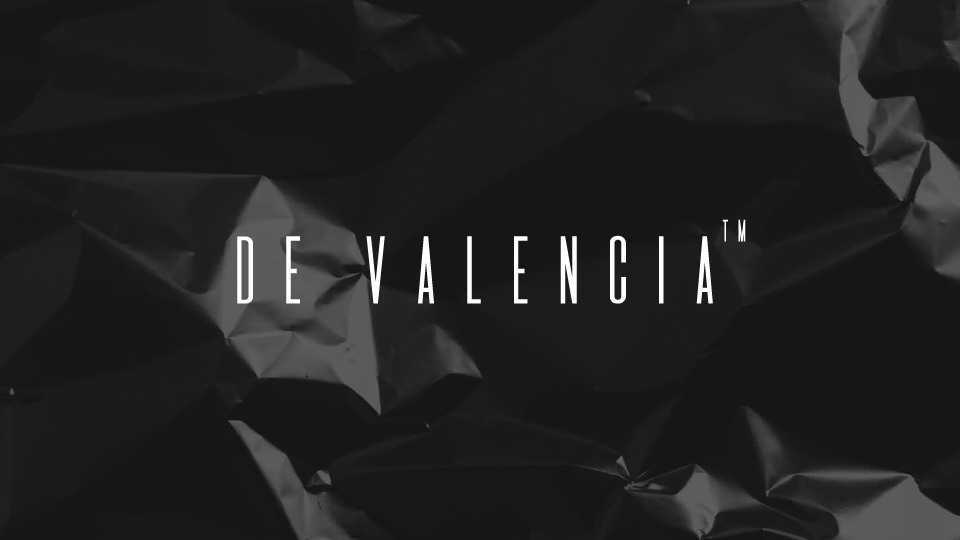
Download De Valencia font, a monospaced display typeface with a subtle, elegant and minimalist character. De Valencia’s modern and fresh look and feel makes it perfect for titles, posters, editorial and even logotypes.
Designer: Manuel Fernández del Campo García